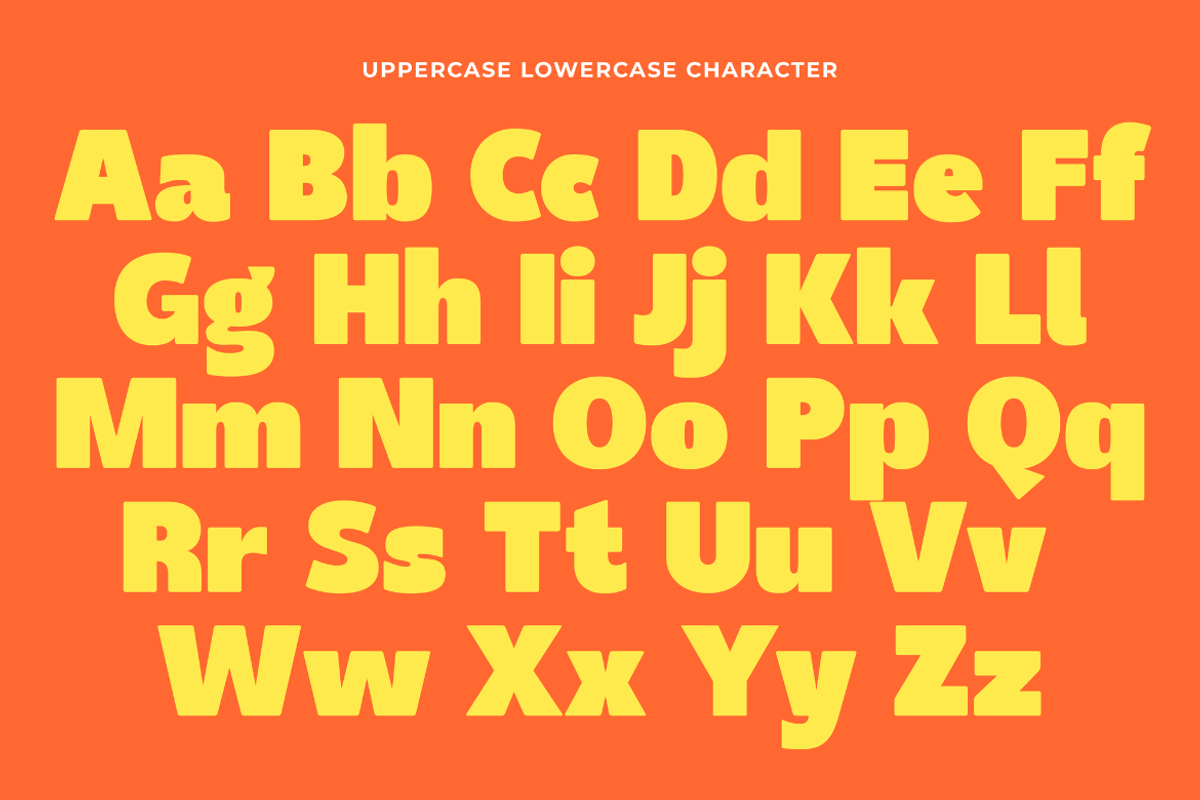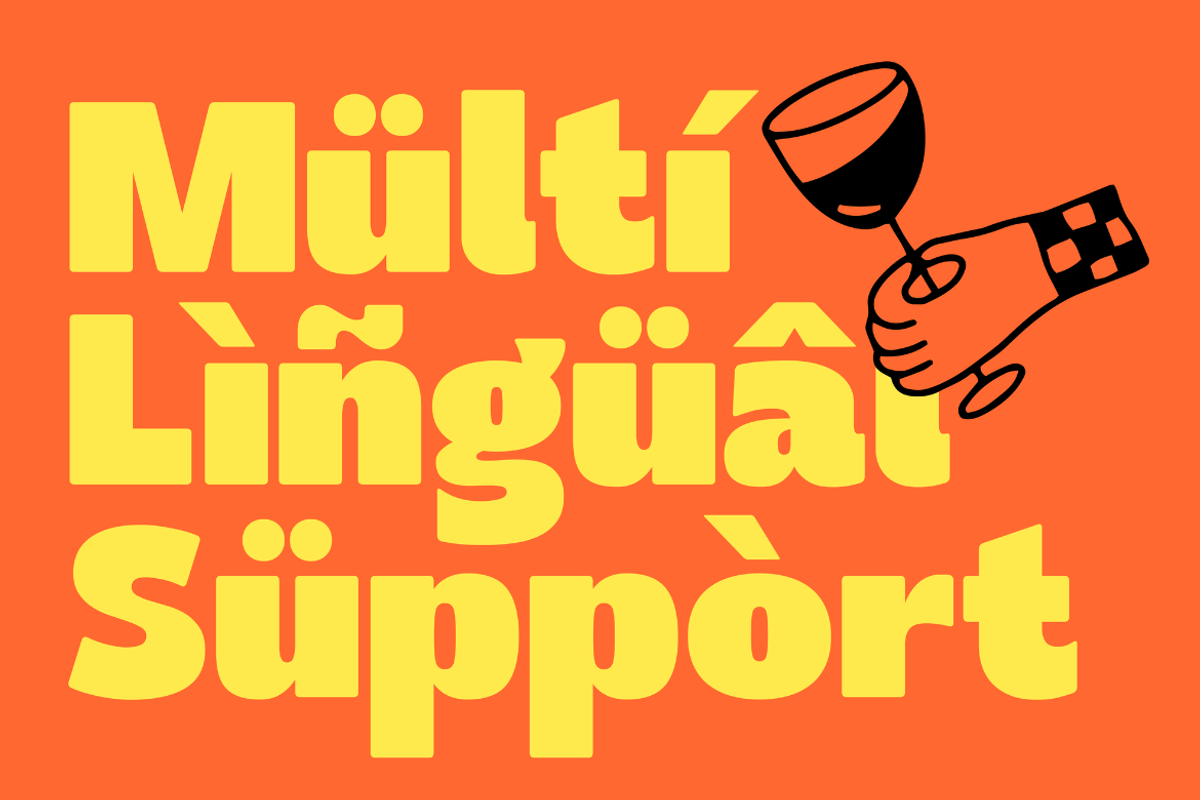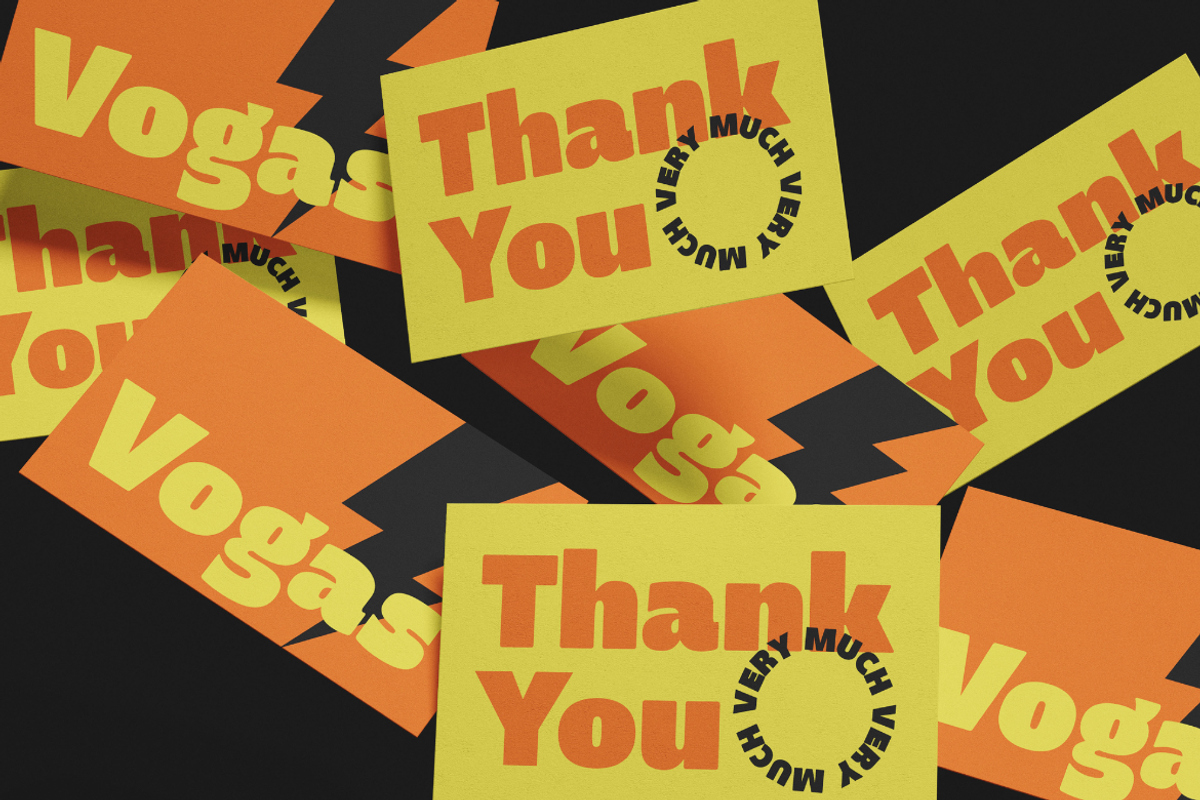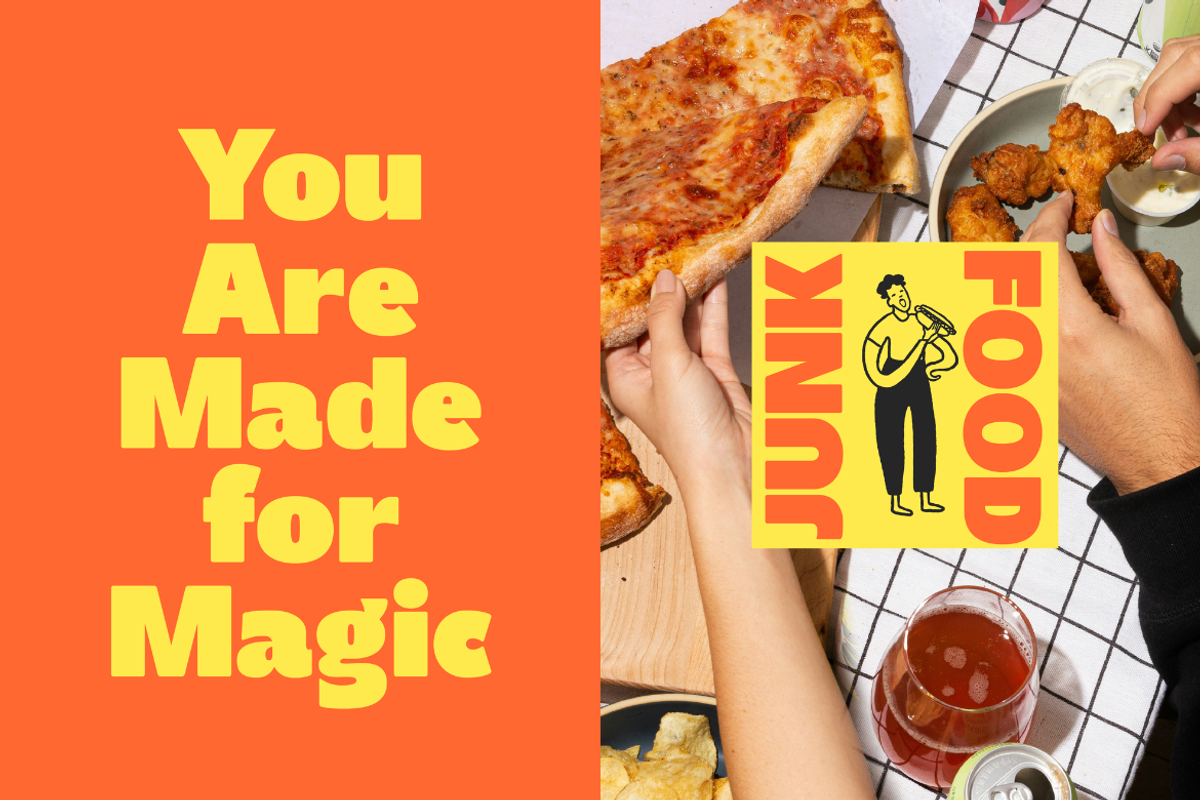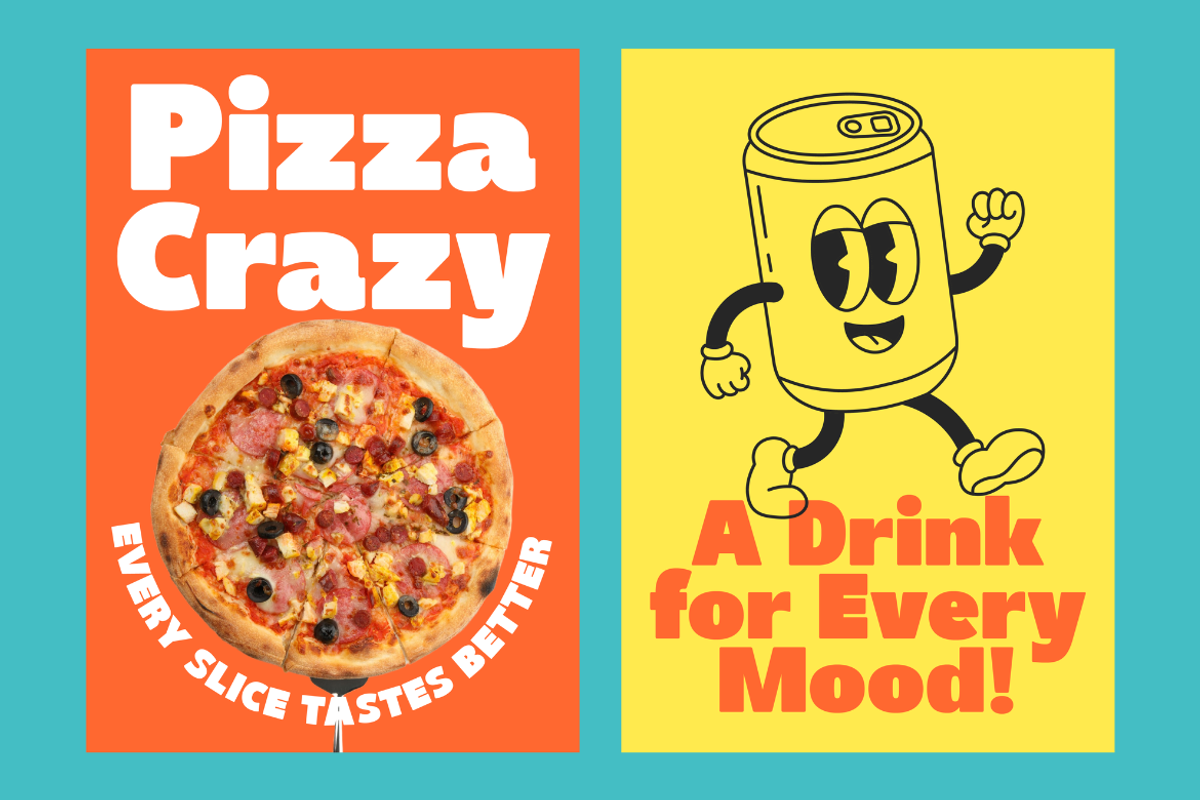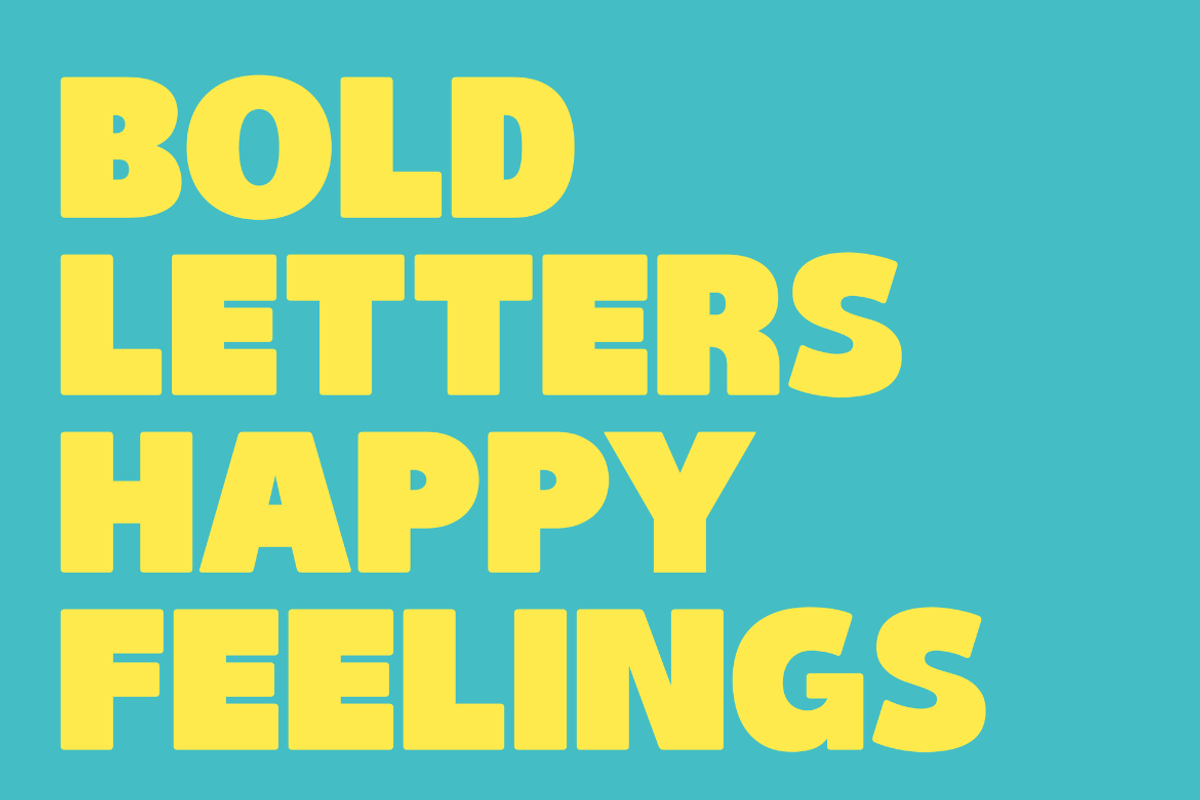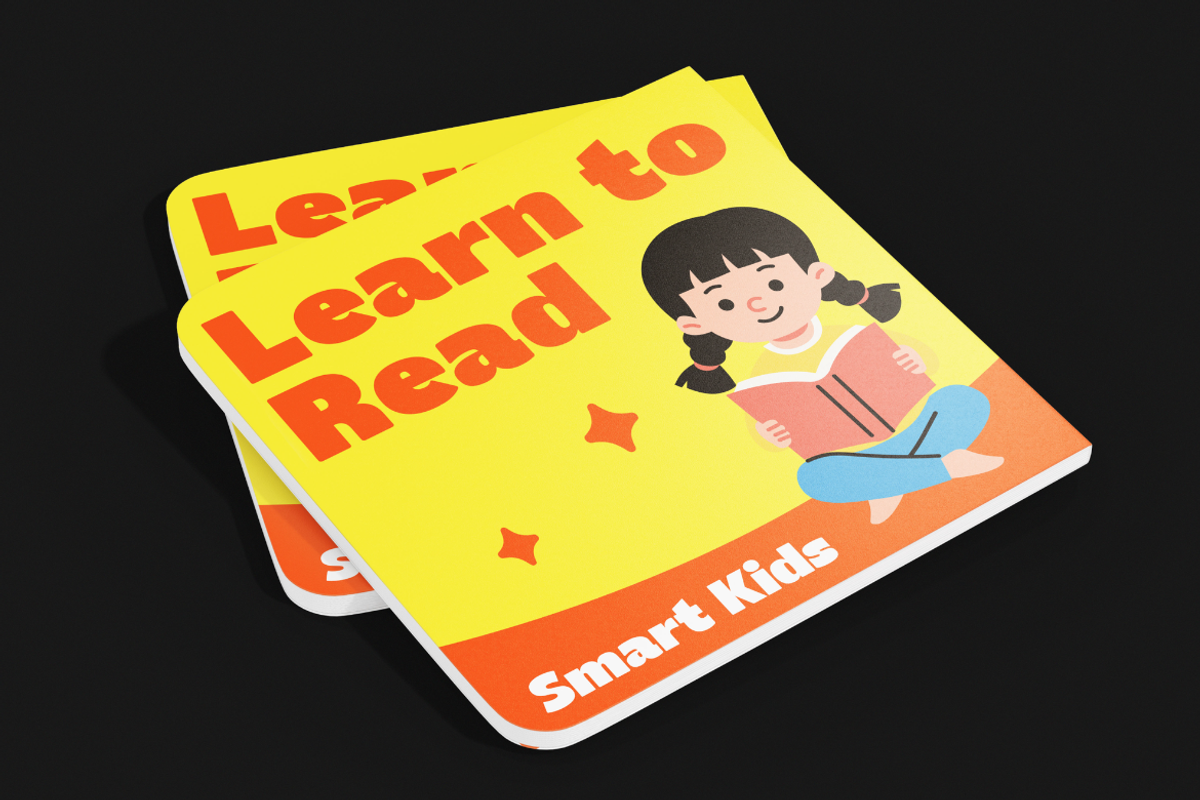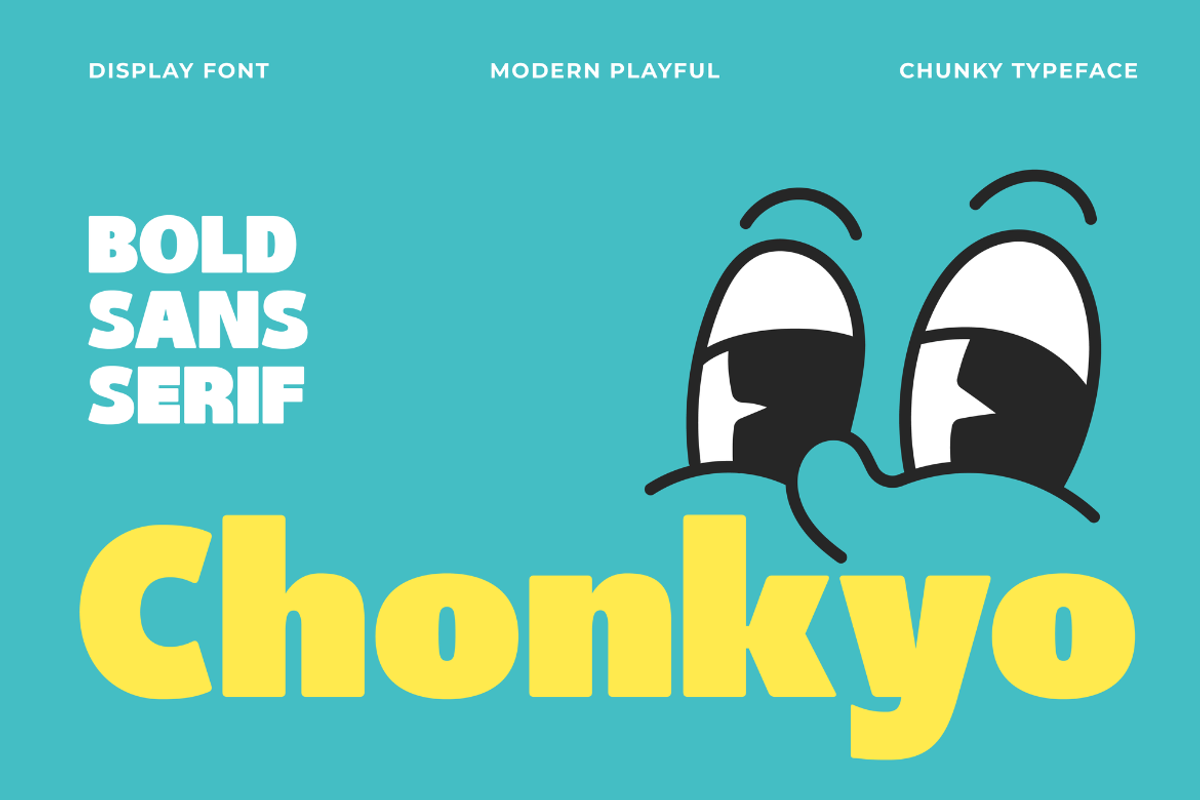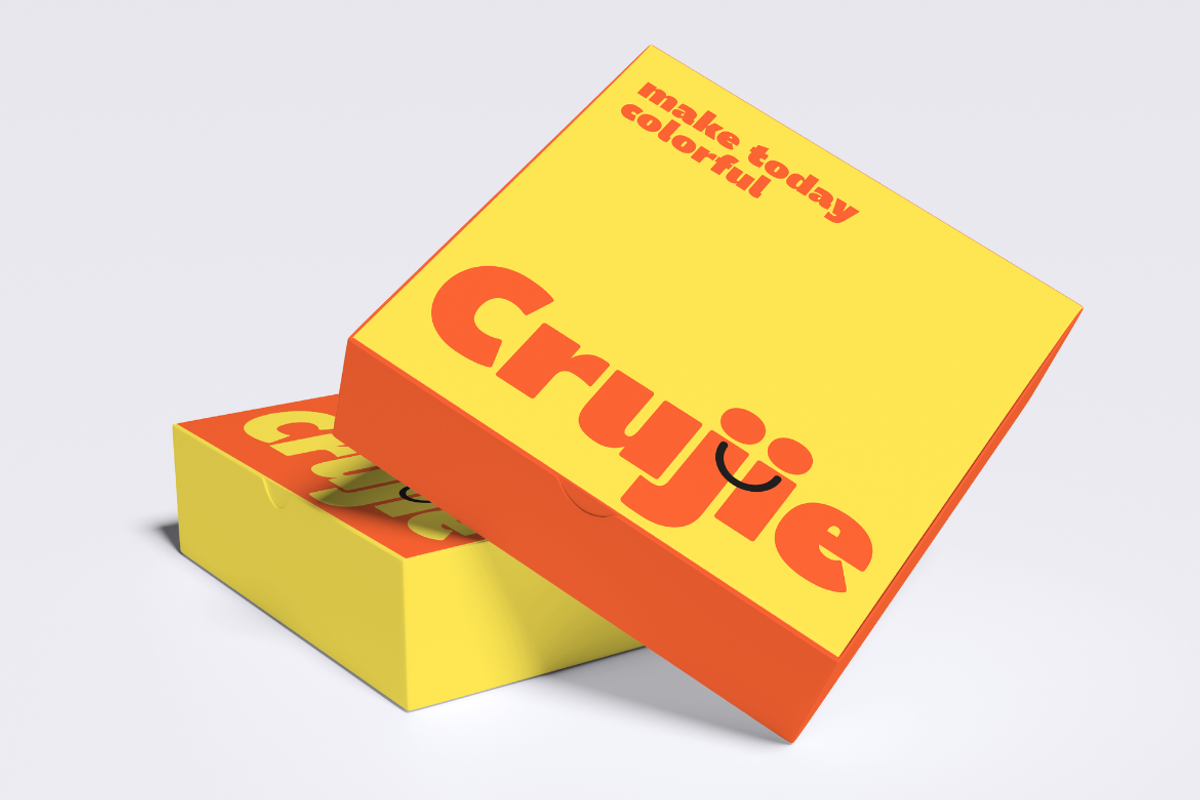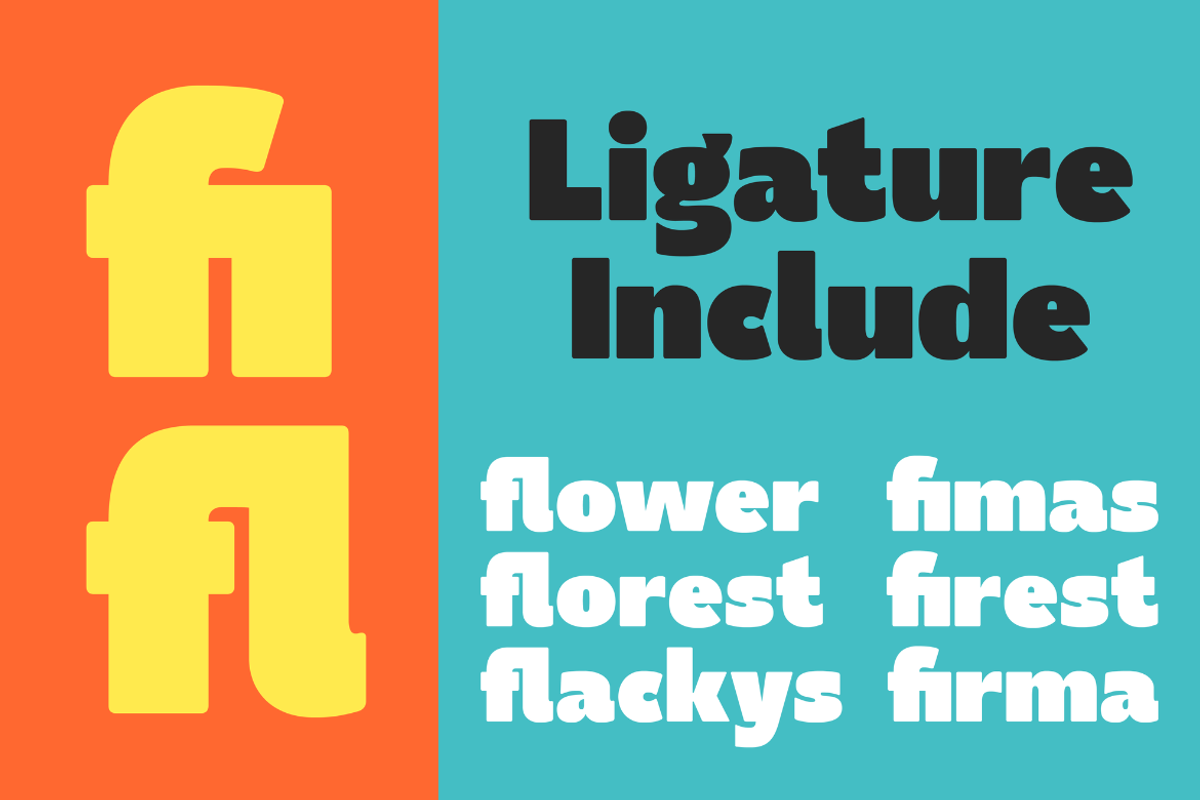
Chonkyo - Bold Display Sans Serif
Chonkyo is a bold display sans serif designed to bring fun, energy, and confidence to every project. With its chunky letterforms, soft curves, and friendly personality, Chonkyo is made for brands that want to stand out with a modern yet playful voice.
Perfect for eye-catching headlines, logo design, packaging, and social media graphics, Chonkyo combines excellent readability with a distinctive, cheerful style. Its thick geometric shapes create a strong visual presence while maintaining a warm and approachable character, making it ideal for both commercial and creative projects.
Whether you're designing food packaging, kids' products, lifestyle brands, posters, or digital content, Chonkyo delivers bold typography that instantly captures attention and leaves a memorable impression.